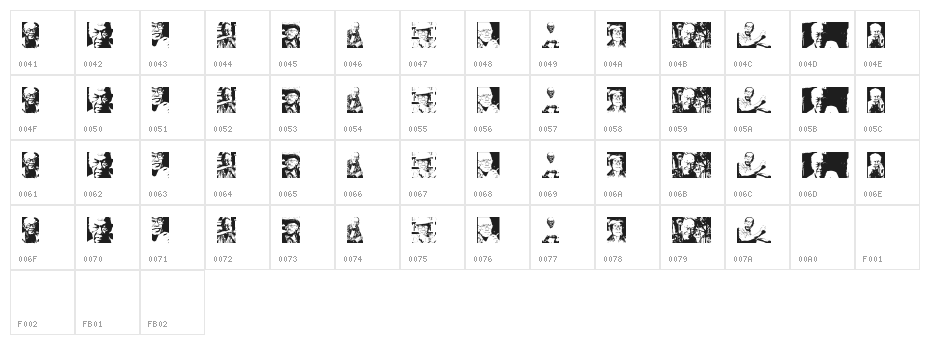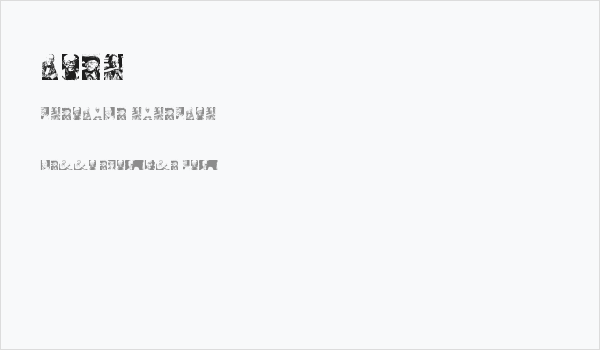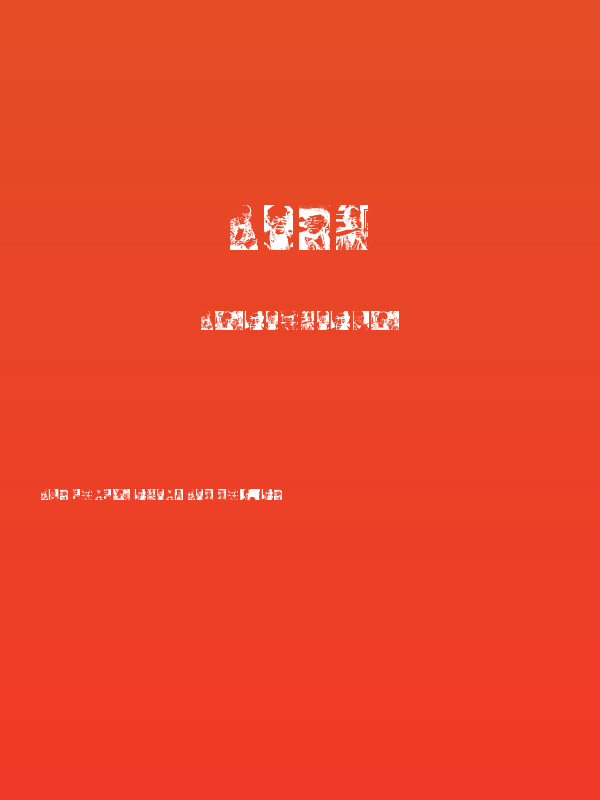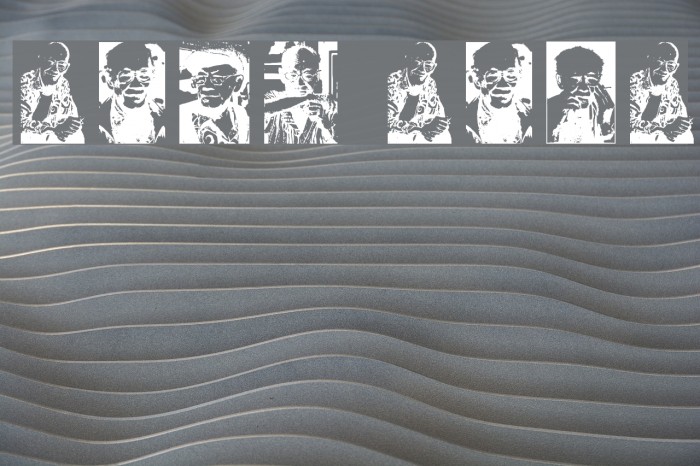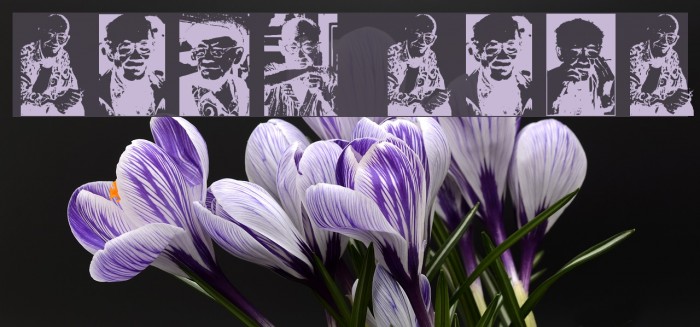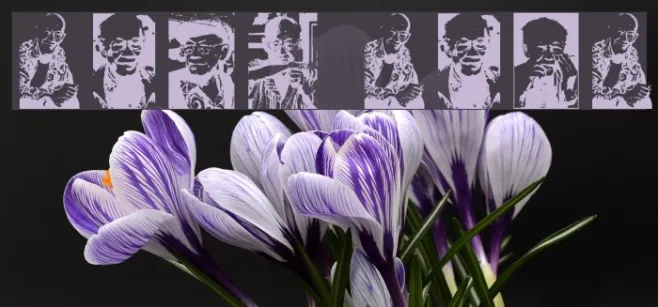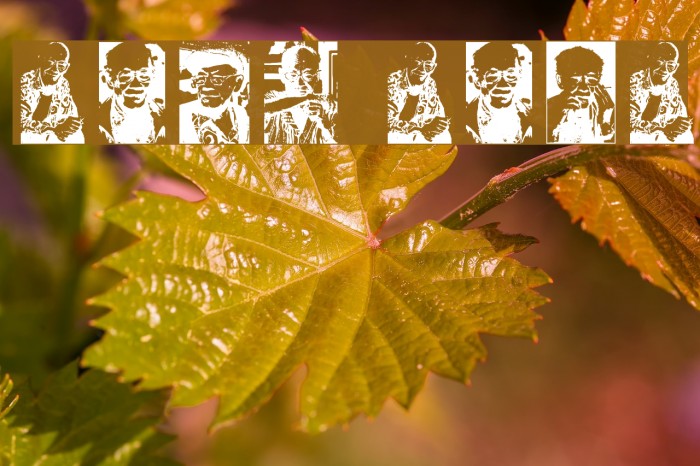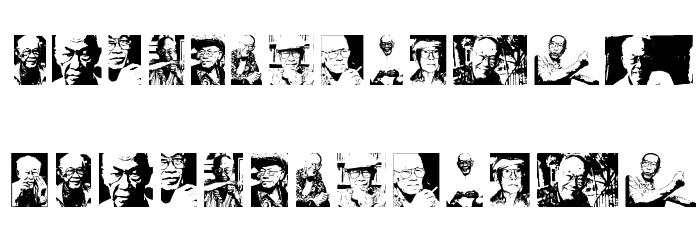
Toer Font
Toer Description
A highly decorative and unconventional font composed of black-and-white photographic portraits within each character's outline, creating a collage effect. The letterforms are only partially visible, relying on the contrast between the faces and the background to define their shapes.
| Overall Style | Decorative, Artistic, Experimental |
| Use Case | Headlines, Posters, Artistic projects |
| Proposed Projects | Posters, album covers, art installations, editorial headlines, experimental branding. |